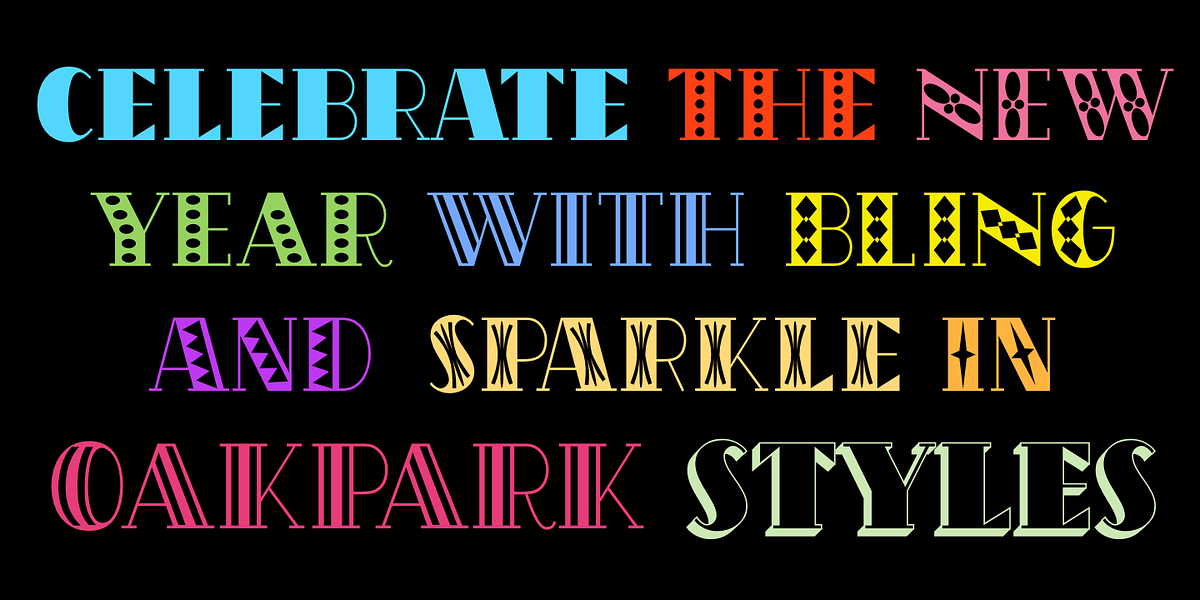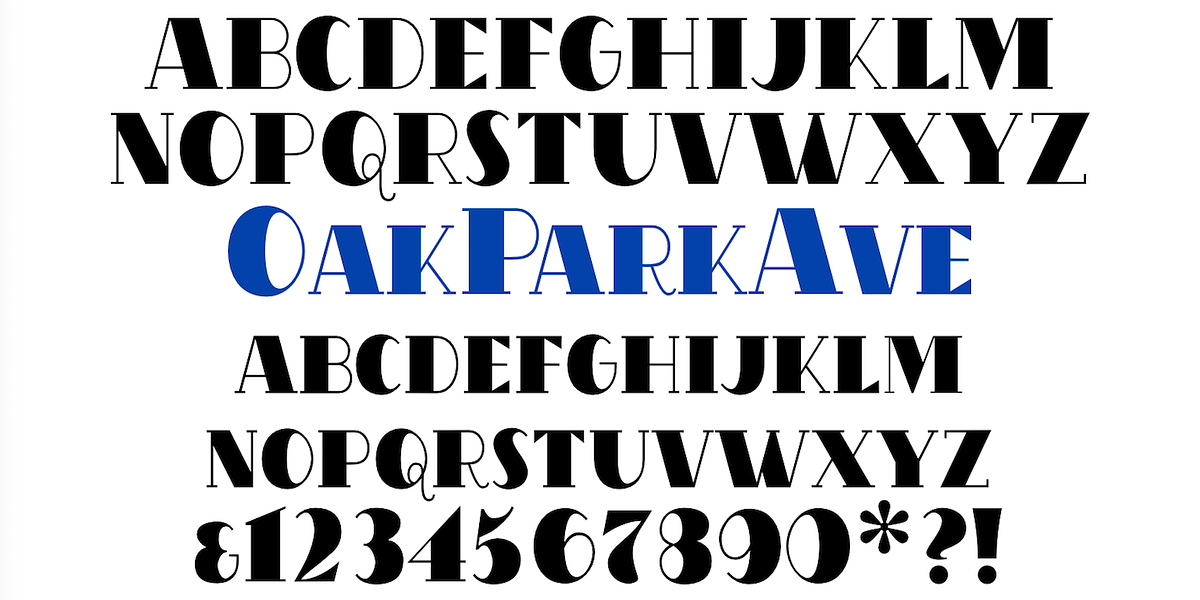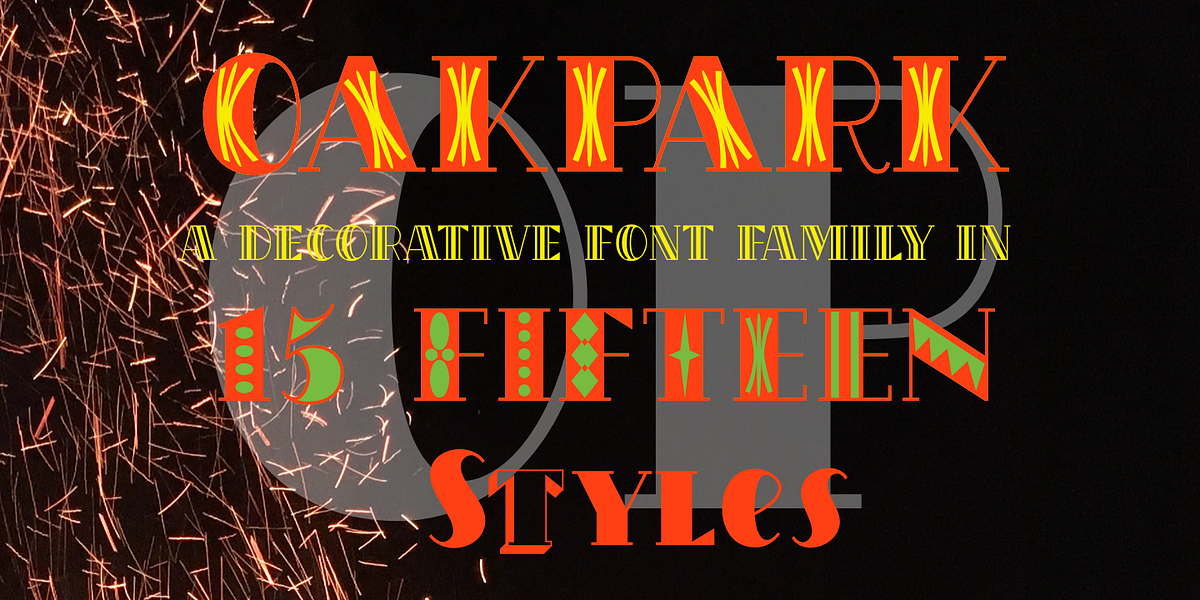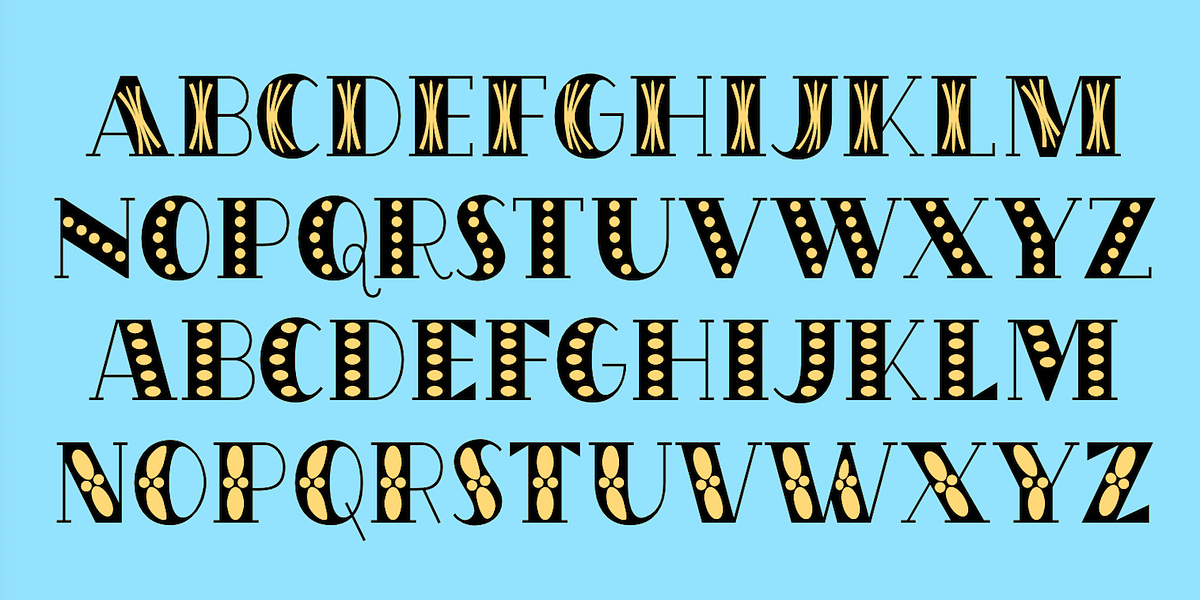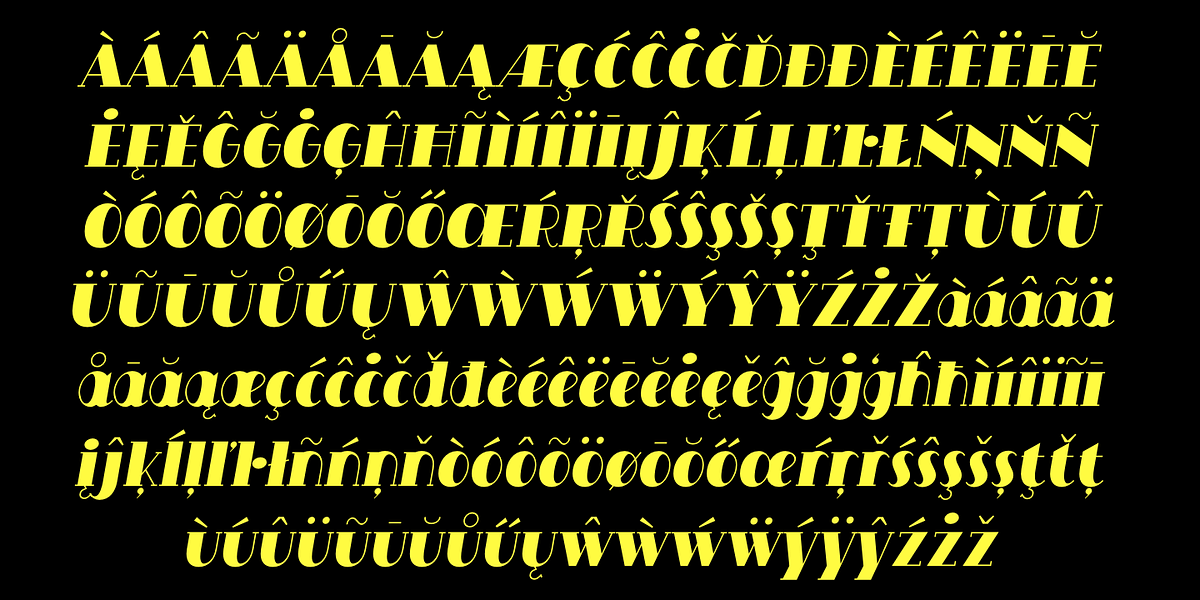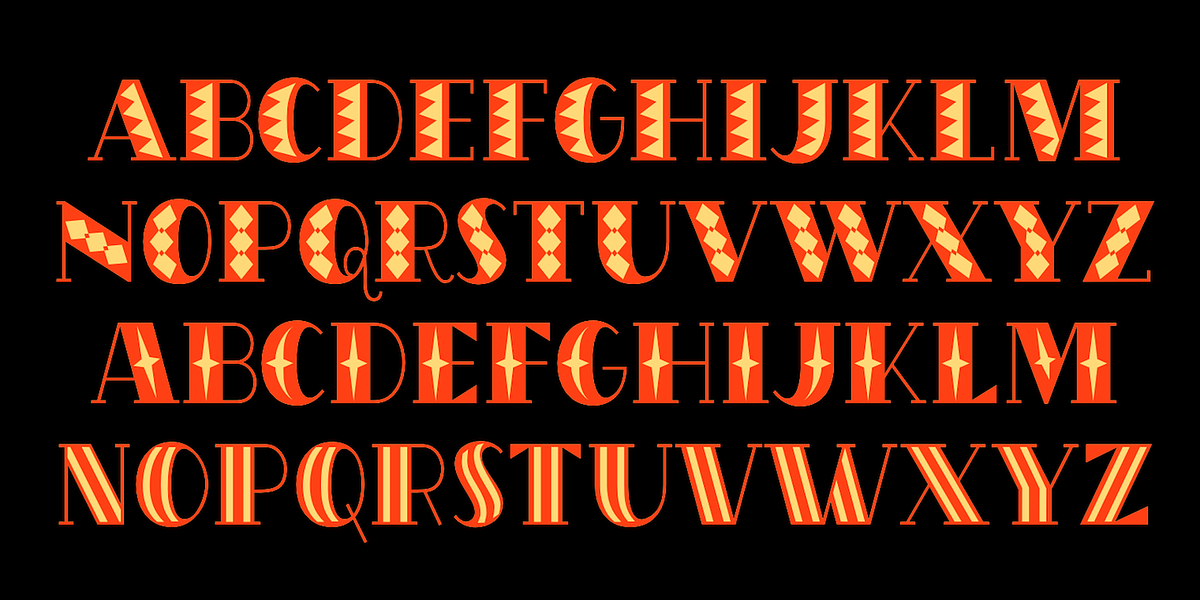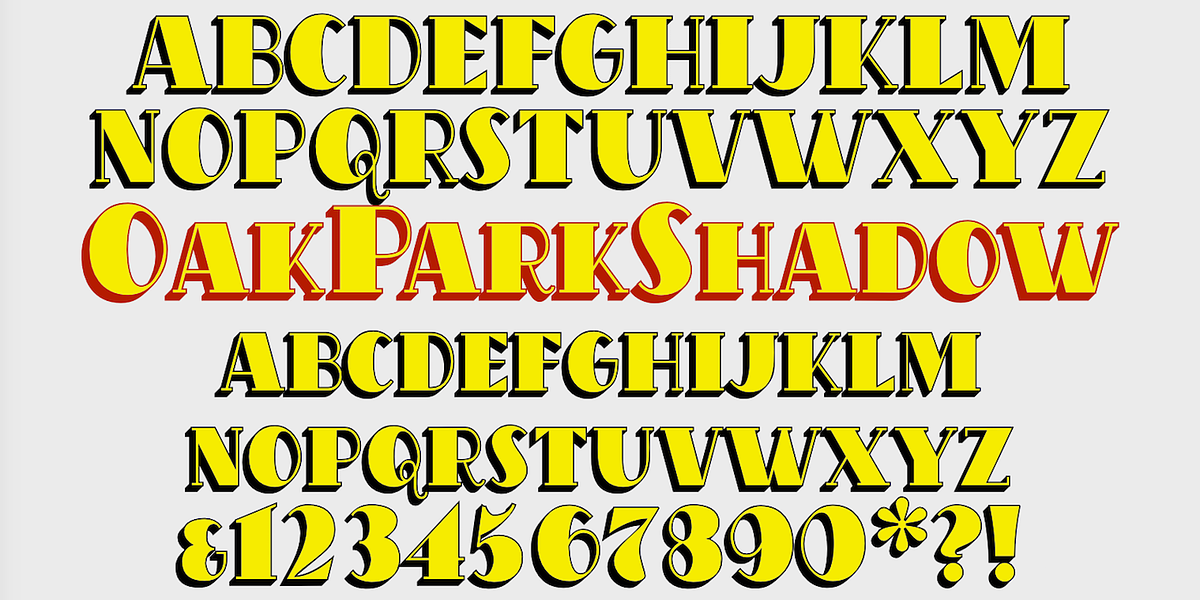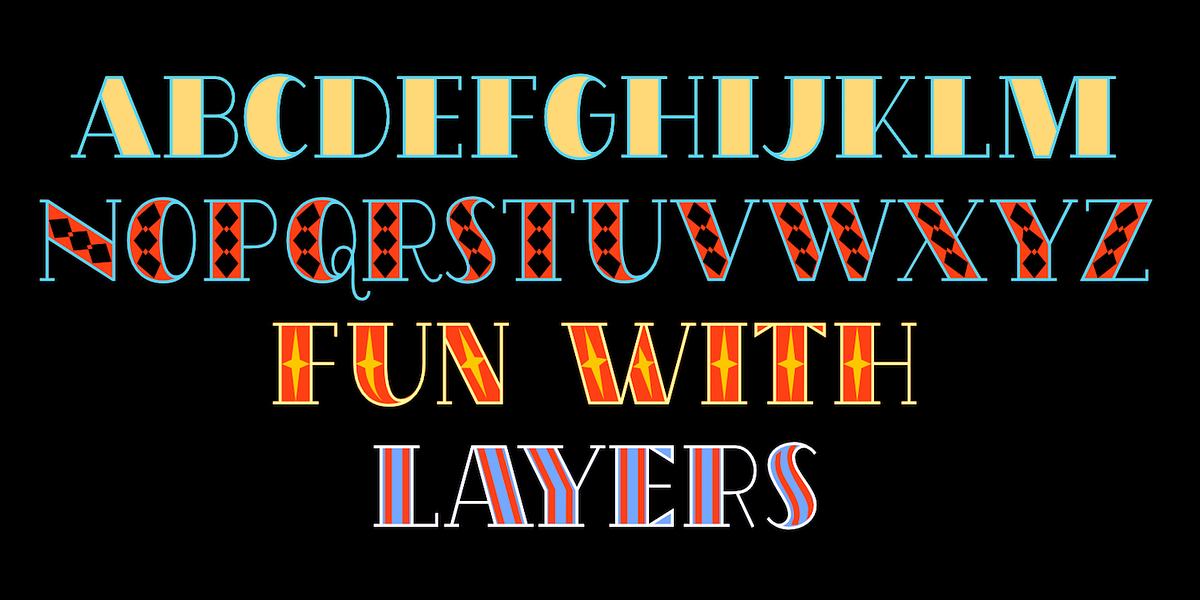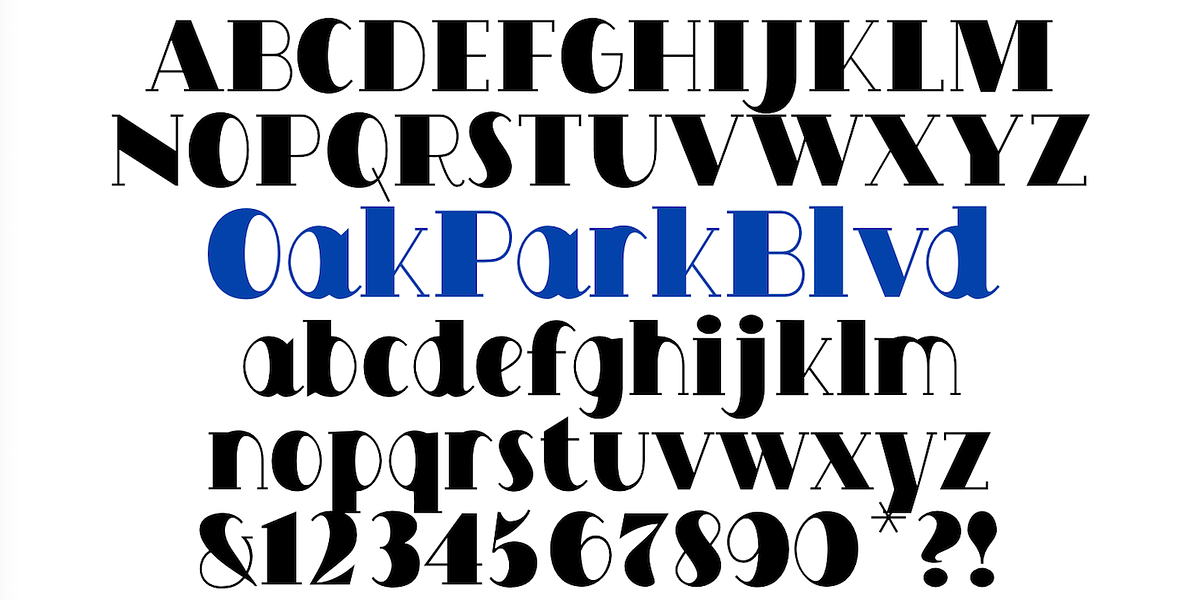
OakPark
OakPark is a decorative display font family inspired by the Art Deco movement. Its design features high contrast between thick and thin strokes, inviting embellishments and a distinctly vintage aesthetic. The family includes various styles: ornamented all-caps versions with layered possibilities for creating colorful text effects, shadowed styles, and a style with true lowercase characters and italics.